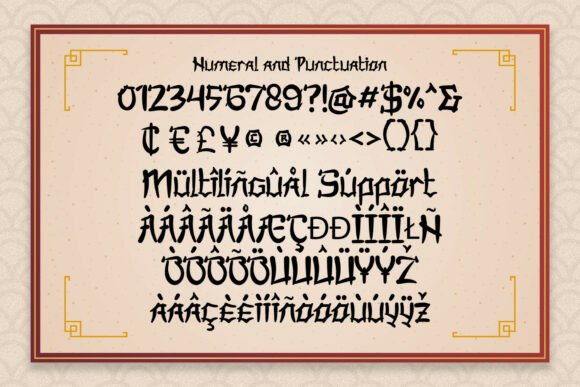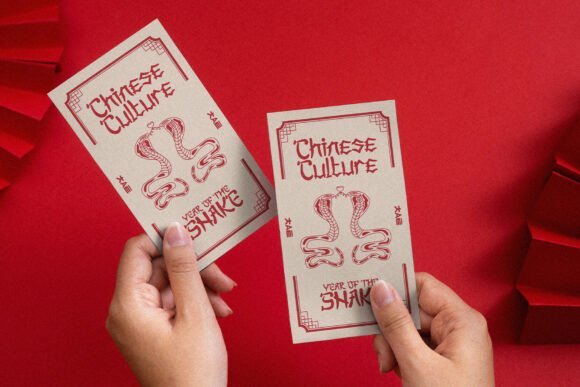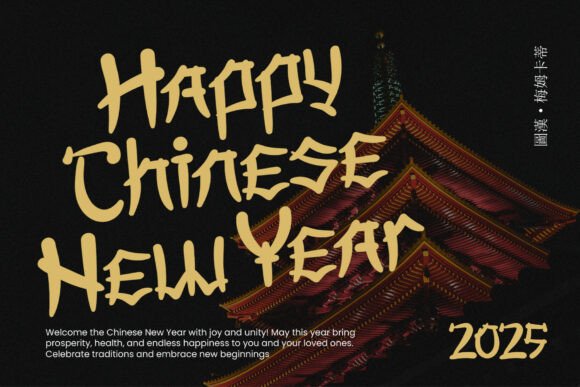
Introduction to Fangmei Regular Font
Fang Mei is a bold Chinese-style display font inspired by traditional brush strokes and modern Asian aesthetics.
With sharp curves and cultural elegance, Fang Mei is perfect for movie titles, posters, packaging, logos, and themed branding projects that seek an Eastern vibe with a fierce attitude The font stands out through its bold, brush-inspired strokes that mimic traditional East Asian calligraphy.
Key Features of Fangmei Regular Font